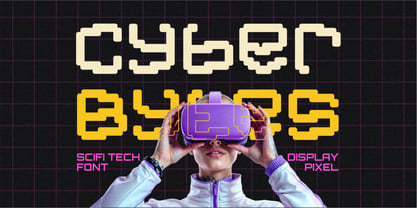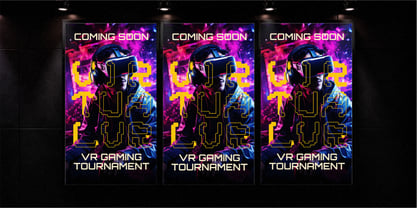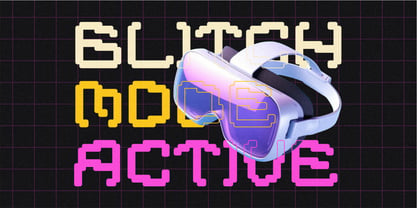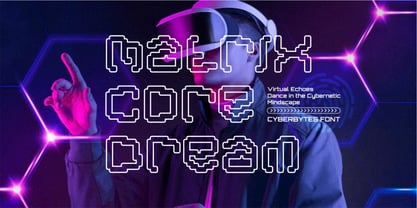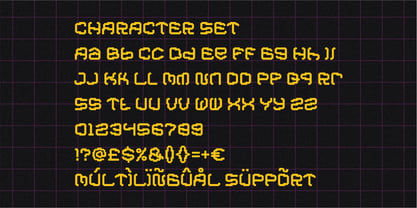
Cyber Bytes
by Shanaf
The Cyber Bytes Font Family was designed by Yesie Erma Yunita and published by Shanaf. Cyber Bytes contains 1 styles. More about this family
Cyber Bytes is a futuristic pixel font that bridges the gap between retro arcade energy and next-gen digital tech. Its modular, grid-based letterforms feature smooth curves with sharp terminals, resembling glitch effects and virtual block structures. Inspired by sci-fi interfaces, VR experiences, and cyberpunk visual culture, this font offers a bold and high-impact presence on any layout. Its pixelated architecture maintains a digital precision while still feeling alive with movement—perfect for designs that need to scream “tech-forward.” The alternating color themes and layering effects shown in the previews amplify its immersive, tech-embedded character.
Ideal for posters, VR branding, e-sports events, movie titles, or futuristic packaging, Cyber Bytes brings a strong, recognizable identity to digital and print applications. It’s crafted to dominate headlines, logos, and thematic compositions while staying highly legible in various environments. With multilingual support and a full character set, it’s also ready for global applications in gaming, sci-fi literature, and edgy digital projects. Whether you're designing a techno rave flyer or a cybernetic interface mockup, this display font injects an electrifying pulse into your work.
Designers: Yesie Erma Yunita
Foundry: Shanaf